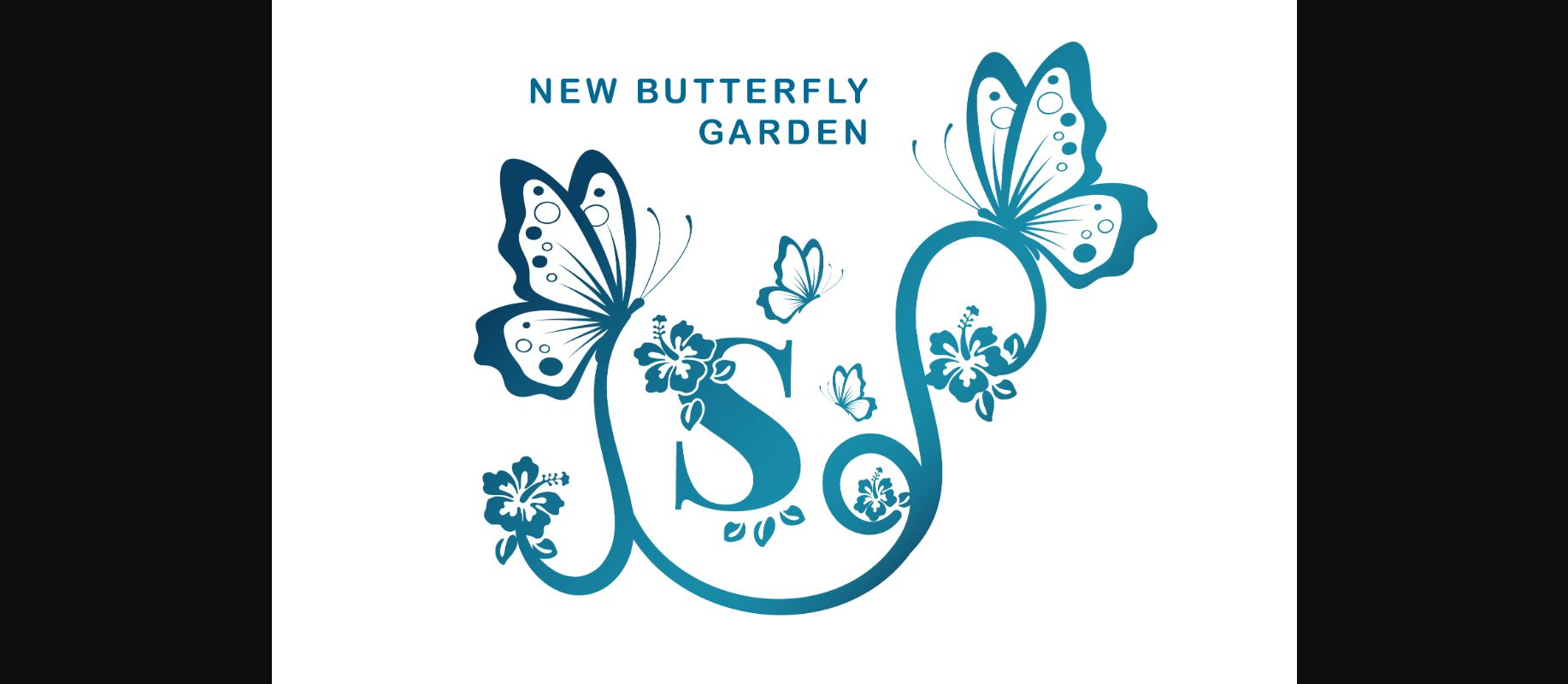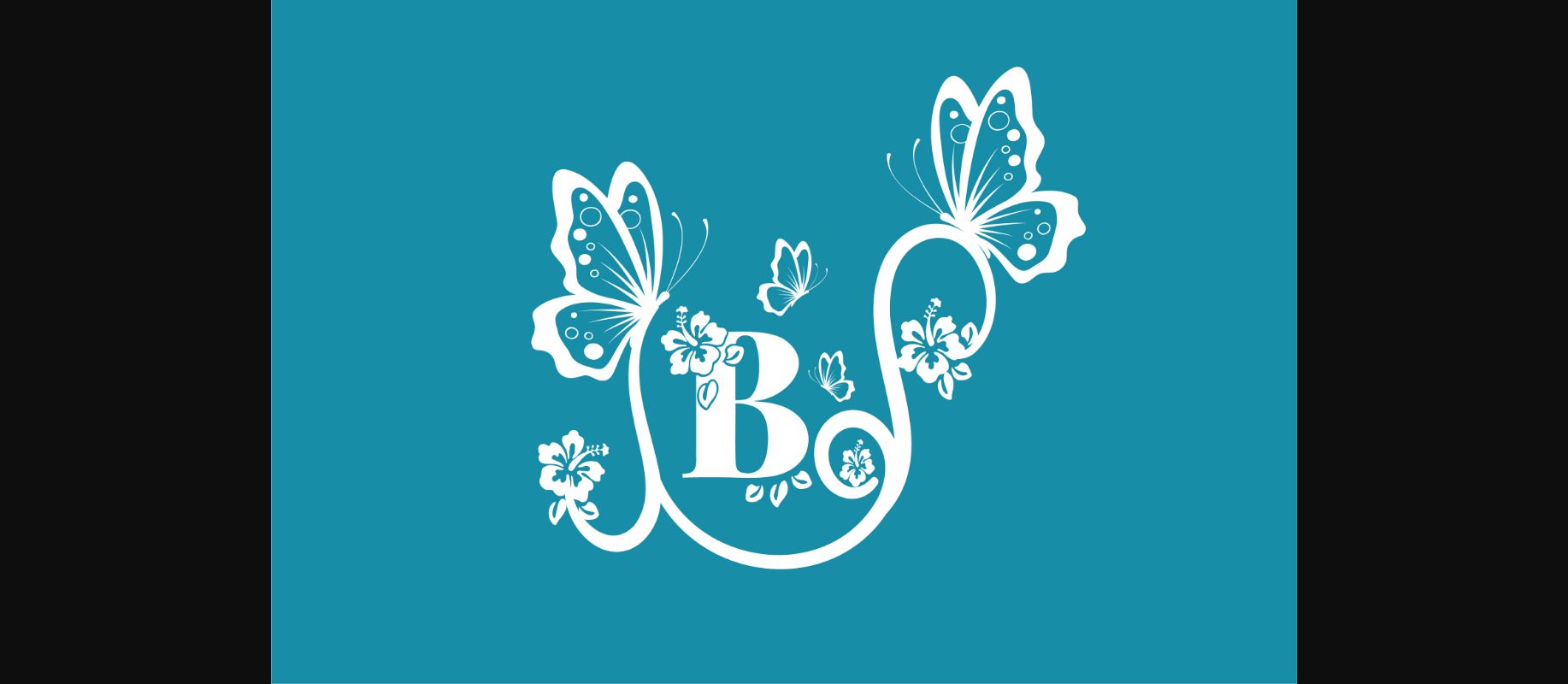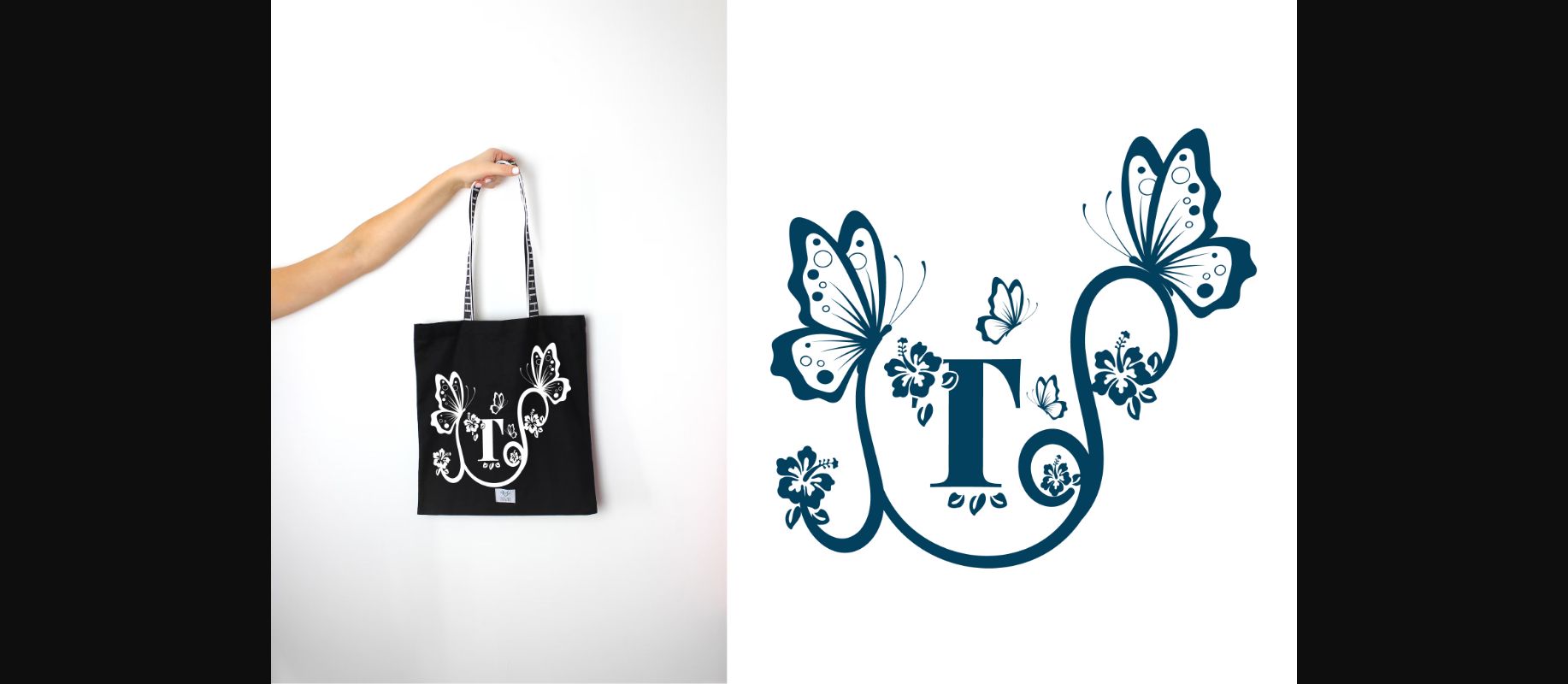
New Butterfly Garden Monogram Font
About New Butterfly Garden Monogram Font
New Butterfly Garden is an elegant decorative font, featuring lovely ornaments. Fall in love with its authentic feel and use it to create gorgeous stationary art, eye-catching social media posts, and cute greeting cards.